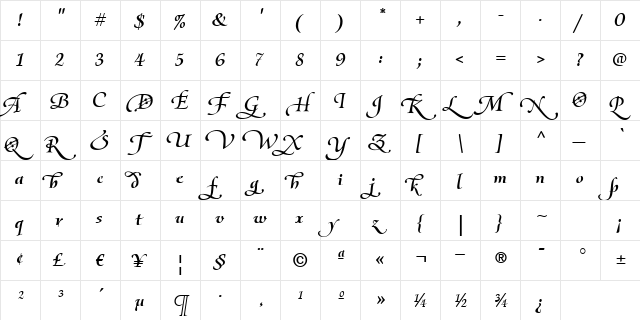
Olietta script Lyrica BoldItalic
| Foundry | Gophmann A.L. |
| Designer | Gophmann A.L. |
Design Context for Olietta script Lyrica Typeface
Olietta script Lyrica brings a calligraphic fluidity to the page — its connecting strokes and expressive curves give it an unmistakably human quality. Its bold stroke weight gives it real presence on the page.
Font Pairing: Combine Olietta script Lyrica with a simple geometric sans for maximum contrast — the tension between flowing curves and clean structure is a classic typographic pairing.
Pro Tip: Use Olietta script Lyrica for short runs of text — names, titles, or taglines. Extended body copy in script faces tires the eye quickly.